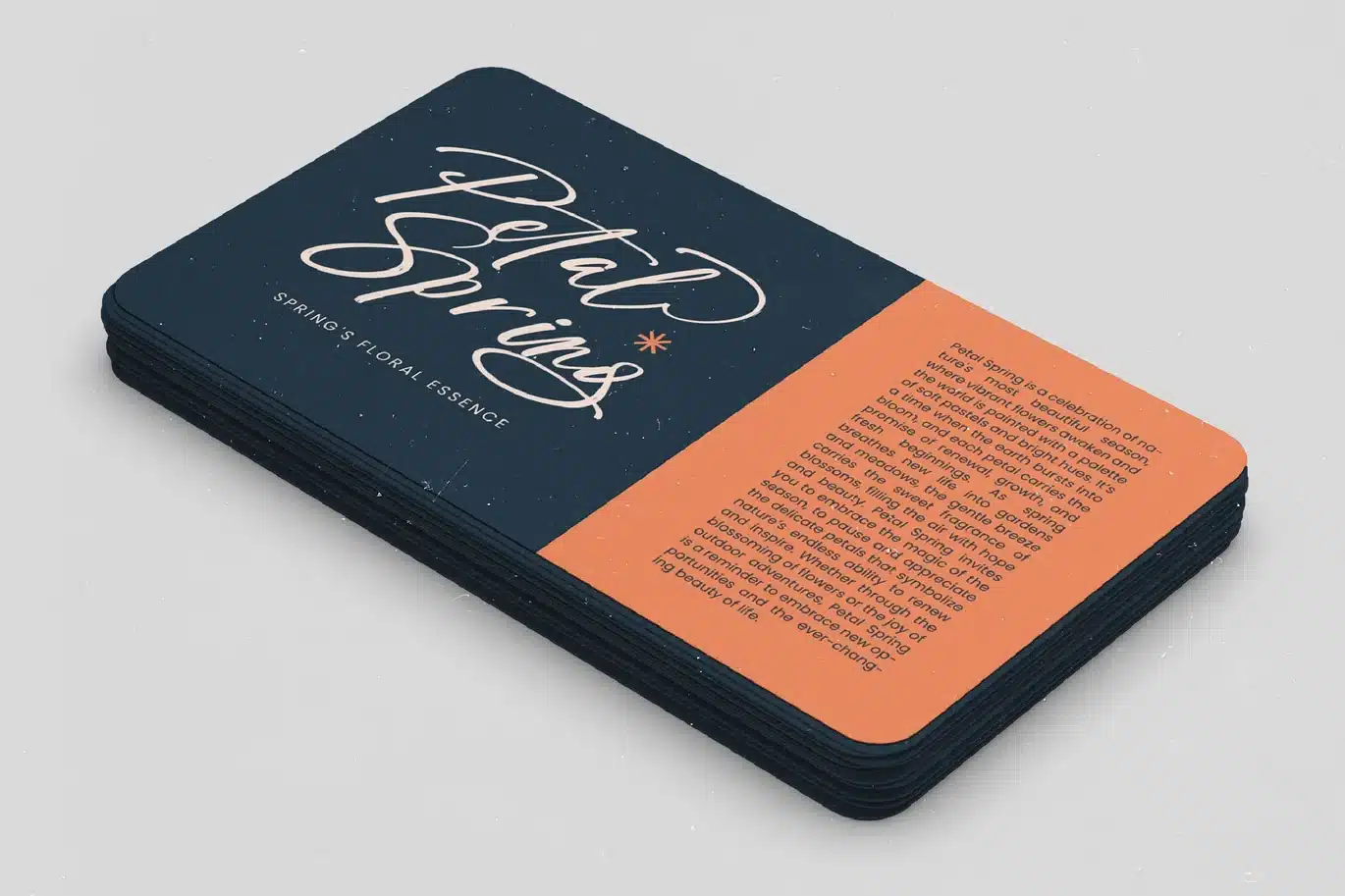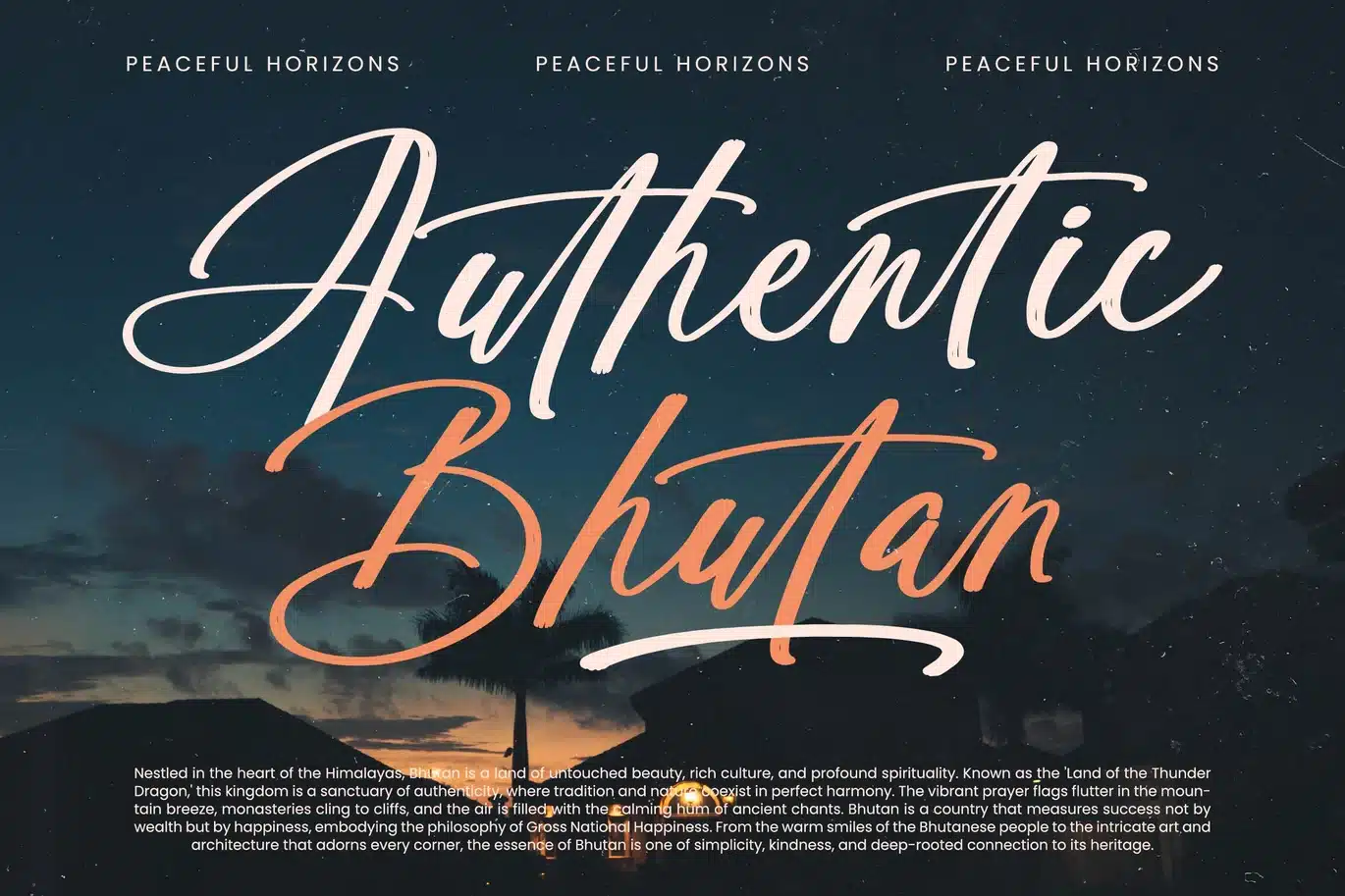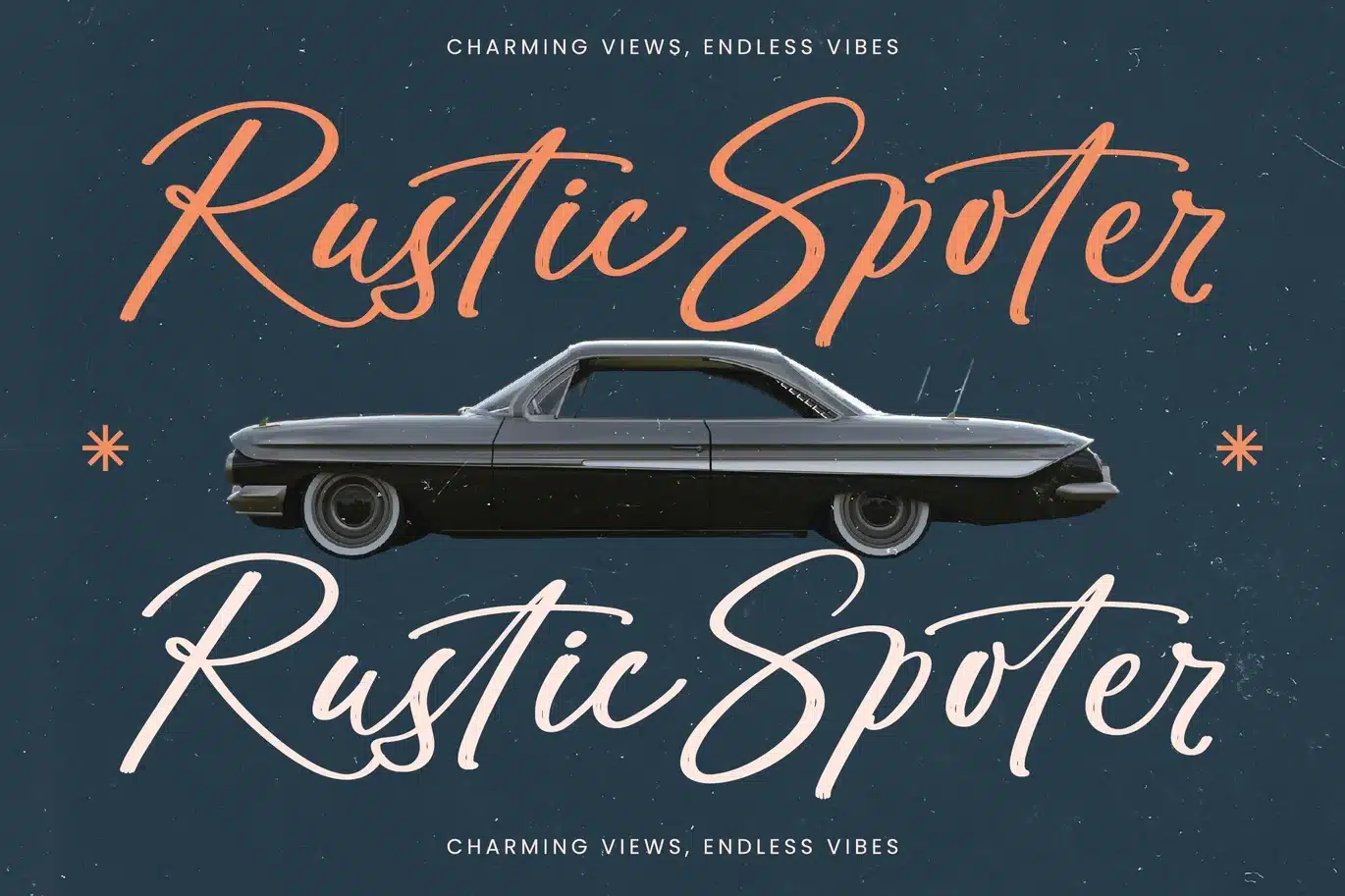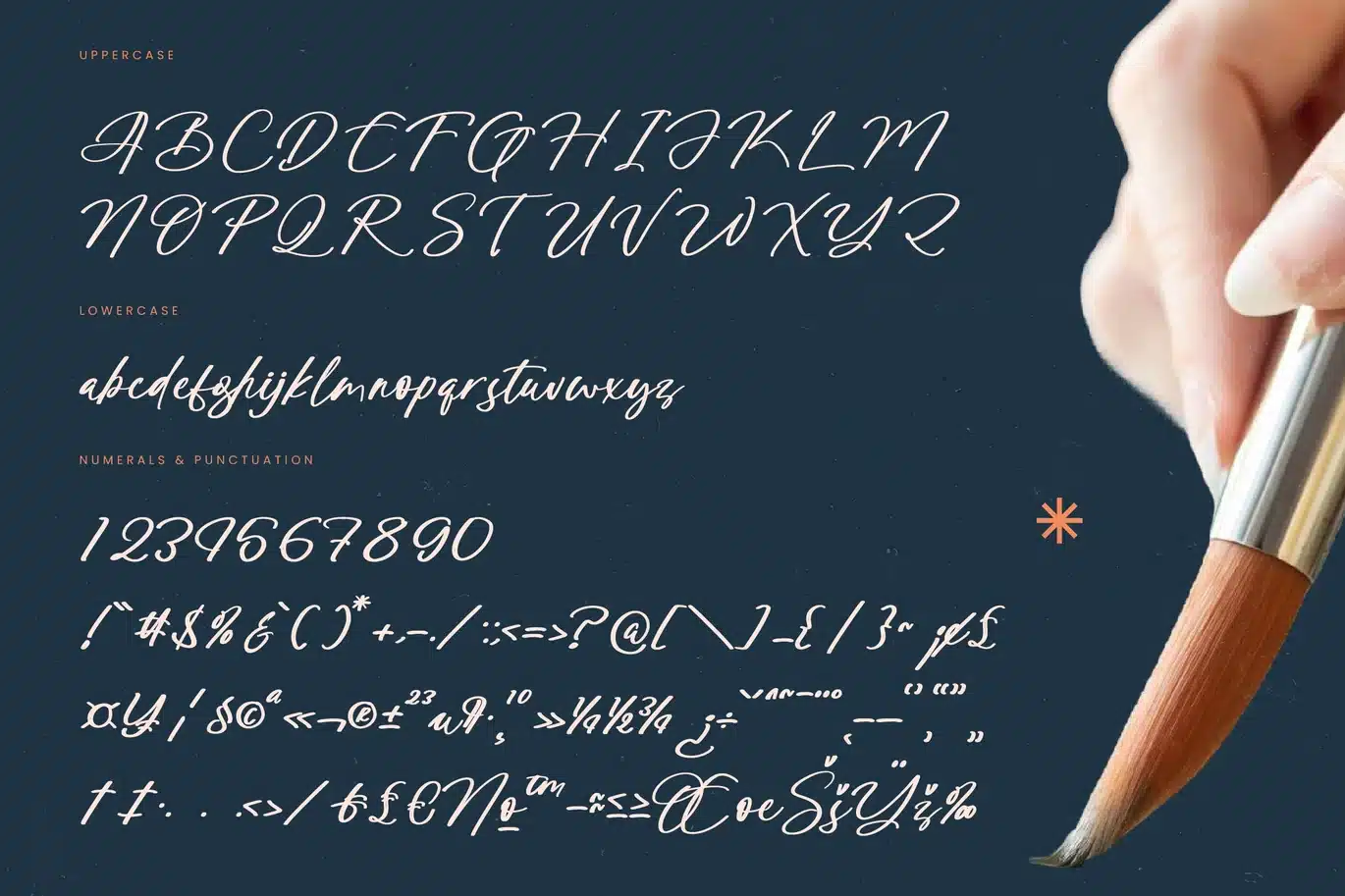
Authentic Bhutan – Bold Brush Font
Authentic Bhutan is a bold brush font crafted to bring energy, style, and modern artistry into design projects. With its strong brush strokes, expressive ligatures, and stylish swashes, this typeface captures the perfect balance between raw authenticity and contemporary elegance. Featuring 172 ligatures, 29 alternates, and 12 swashes, Authentic Bhutan gives designers the flexibility to create bold, dynamic, and highly customized lettering.
This font excels in branding. Perfect for logos, fashion labels, streetwear brands, artisan products, and lifestyle packaging, Authentic Bhutan communicates strength and originality. Its bold brush style ensures that branding projects look stylish, powerful, and unforgettable, making it a top choice for trend-focused industries.
In editorial and publishing, Authentic Bhutan adds impact and creativity. Magazines, posters, book covers, and album artwork benefit from its striking handwritten style. It creates editorial layouts that are both artistic and visually bold, giving text a unique personality.